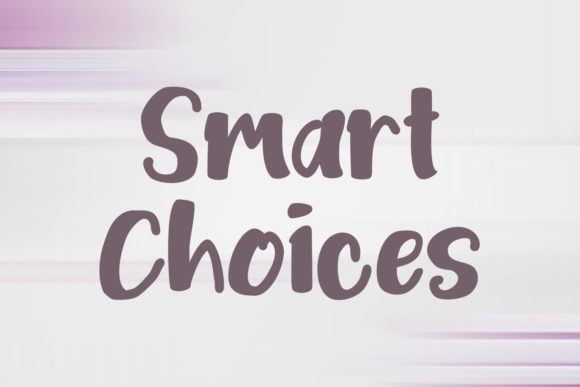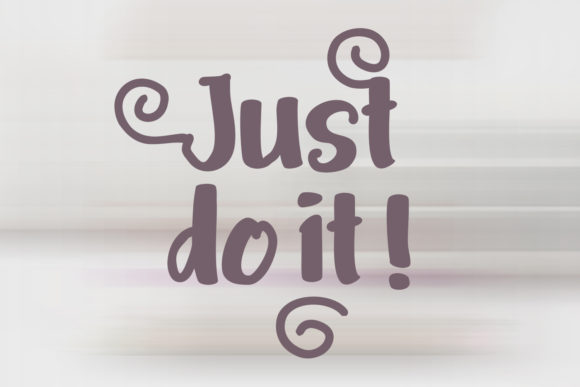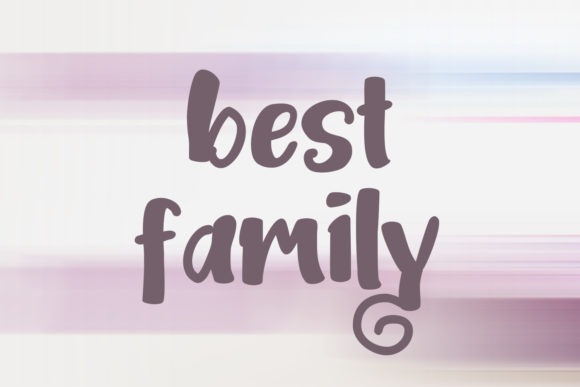
Introduction to Kidding Font
Kidding is a thick lettered yet sweet and joyful handwritten font.
This font is PUA encoded which means you can access all of the glyphs and swashes with ease Add Kidding confidently to your projects, and you won’t be disappointed.
Key Features of Kidding Font